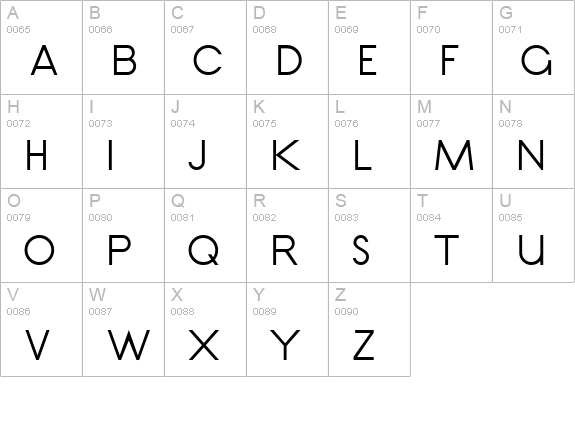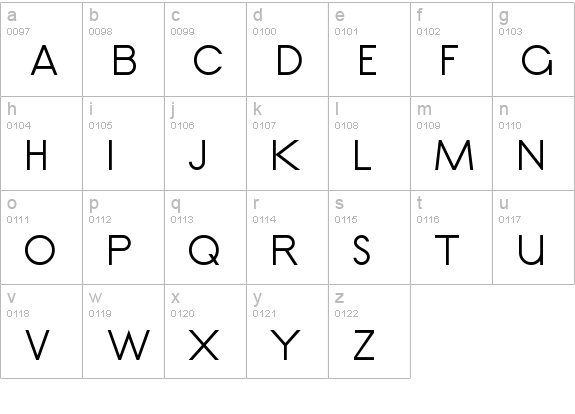
Le Film Letters Font Details
Le Film Letters font is a unique and stylish typeface that draws inspiration from classic film titles. With its elegant yet bold letterforms, this font is perfect for adding a touch of vintage charm to your designs. The sleek lines and sharp angles of Le Film Letters give it a modern edge while still maintaining a sense of nostalgia. What sets Le Film Letters apart is not just its distinctive aesthetic, but also the fact that it is available for free download at FontsMarket.com. This means that you can easily add this eye-catching font to your collection without any cost. Whether you're working on a poster, logo, or any other design project, Le Film Letters is sure to make a statement and elevate your work to the next level. Download it today and let your creativity shine with this stunning typeface.